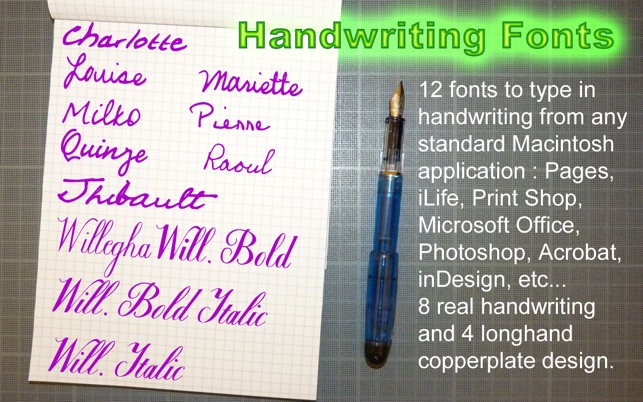
Applications Handwriting Fonts 2.00 January 4, 2021 ( Handwriting Fonts 2.00 )Loading... Download 12 fonts created from real handwriting to produce documents that look and feel as if they had been written manually. 8 of these fonts are everyday script taken from real contemporary handwriting, perfect for memos, envelopes, letters, etc. 4 fonts represent the best in English round copperplate quill writing, taken from a calligrapher work, great for formal text such as invitations, postcards, weddings, menus, poetry, inspirational phrases, etc. See each font, play with it and install it immediately to use with any Macintosh application. Compatibility: OS X 10.10.0 or later, 64-bit processor Homepage http://apps.apple.com/app/handwriting-fonts/id721307042 Screenshots Name: Handwriting_Fonts_2.00_MAS__HCiSO_Mactorrents.io.dmg Size: 5.3 MB Files Handwriting_Fonts_2.00_MAS__HCiSO_Mactorrents.io.dmg[5.3 MB] Download 0 comment TwitterRedditEmail mac torrent MacTorrent - Torrents in Mac. Free Apps, Games & Plugins. Apple Final Cut Pro & Logic Pro X, Adobe Photoshop, Microsoft Office, Pixel Film Studios, previous post Calligraphic Fonts 2.10 next post Subtitle Studio 1.5.3